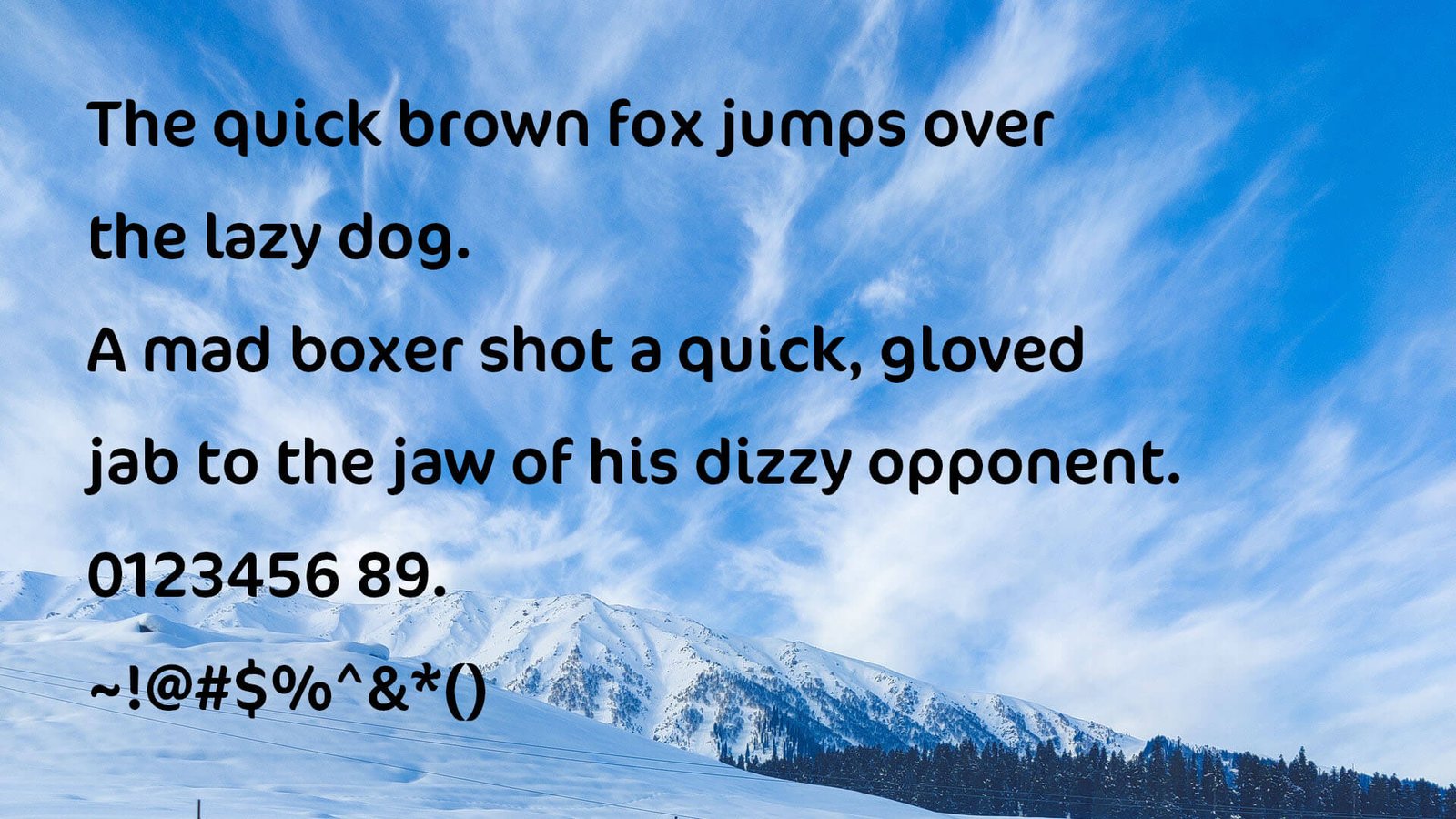
Let’s introduce you to one of the most prominent fonts called Cocon font. This classic font is designed by Evert Bloemsma in 2011. It lies in the sans serif typeface category. This font is very famous among the top designer around the world. Due to its classic and simple design, it attracts designers.
Overall its texture design is rounded but it has a little sharp rounded edge that makes it different from other fonts. It contains up to 270+ glyphs. It contains spacing and proportion. This friendly font also has medium contrast.
Cocon Font Family
| Name | Cocon Font |
| Designer | Evert Bloemsma |
| Type | Sans Serif |